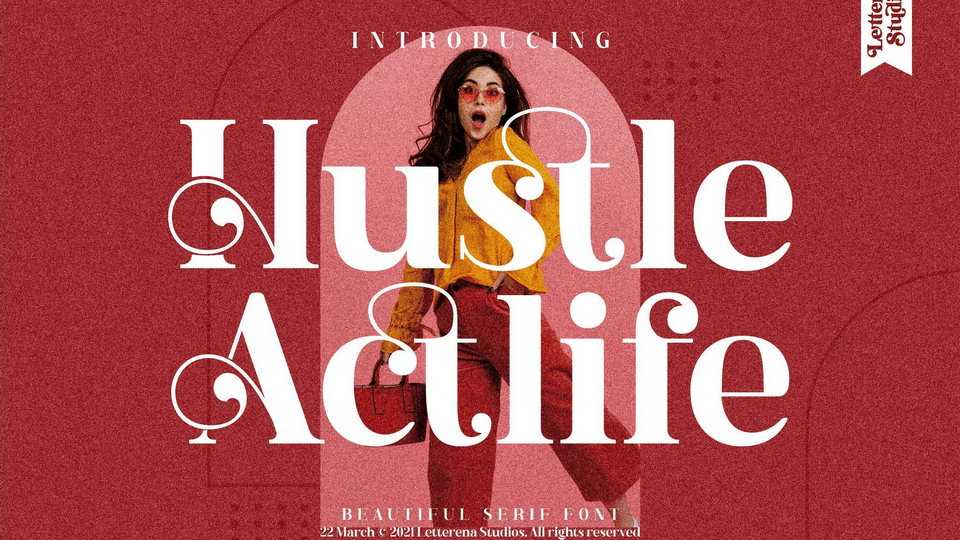
Download Hustle Actlife font, a luxury serif typeface with decorative letters. Hustle Actlife is suitable for a fashion logos, branding, magazines, posters, social media and editorial use.
Designer: Letterena Studios